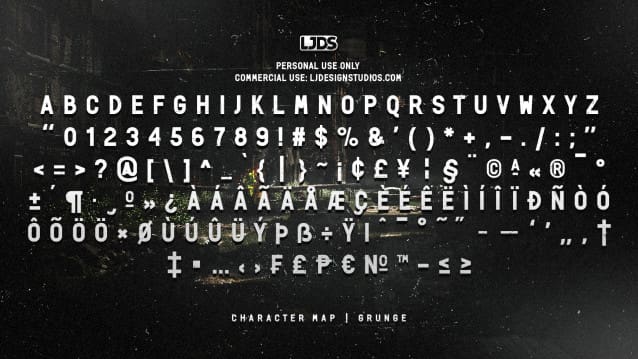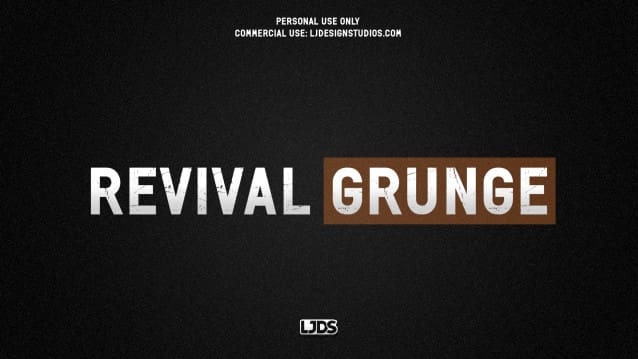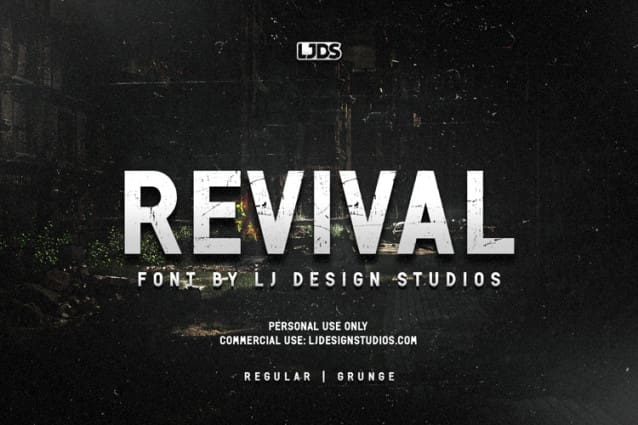
Revival Font
Revival Font is a semi-condensed uppercase style with two font families (Regular, Grunge). It is an aesthetic design, simple but very nice to implement eye-catching compositions or create titles with attractive effects.